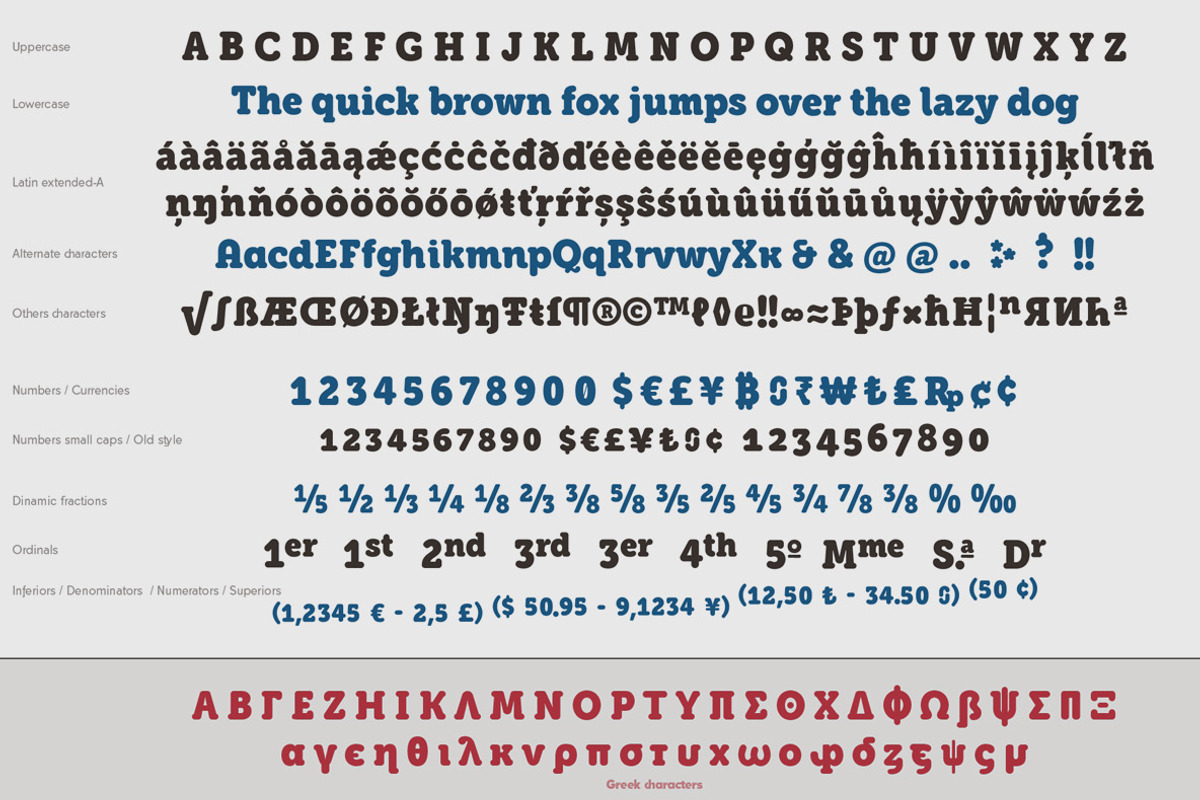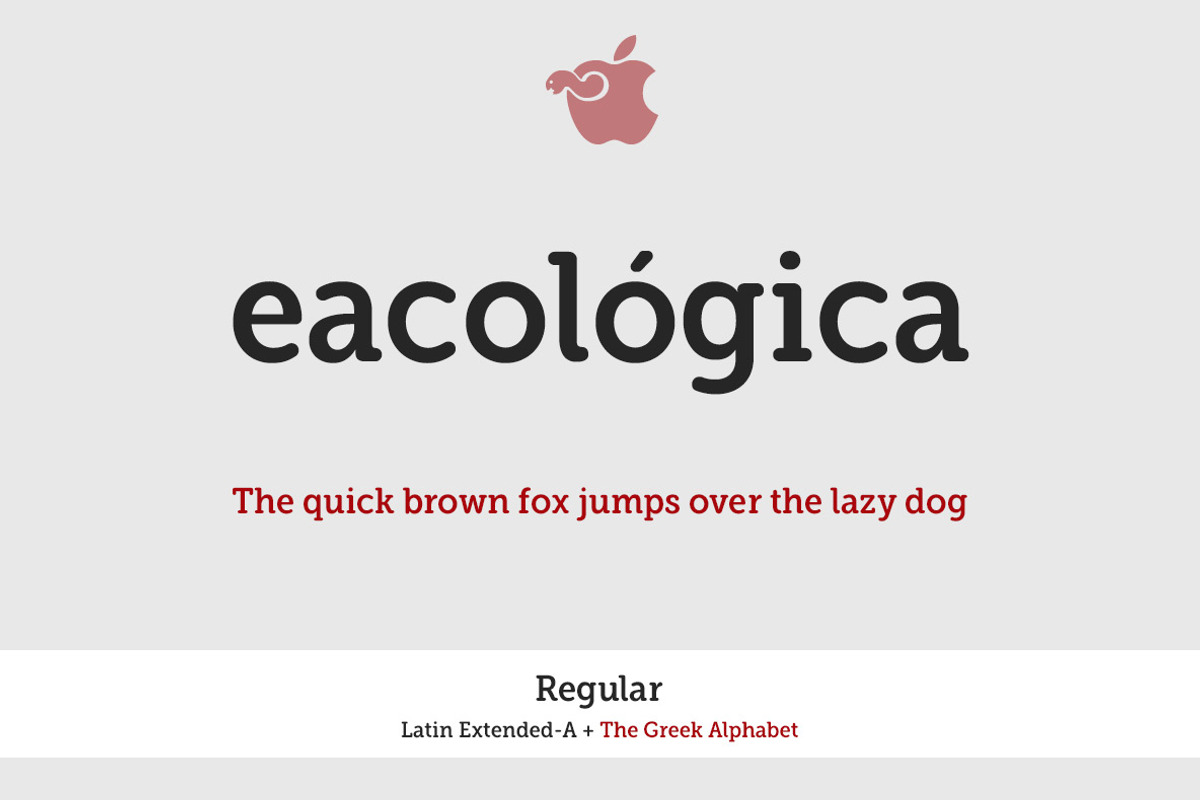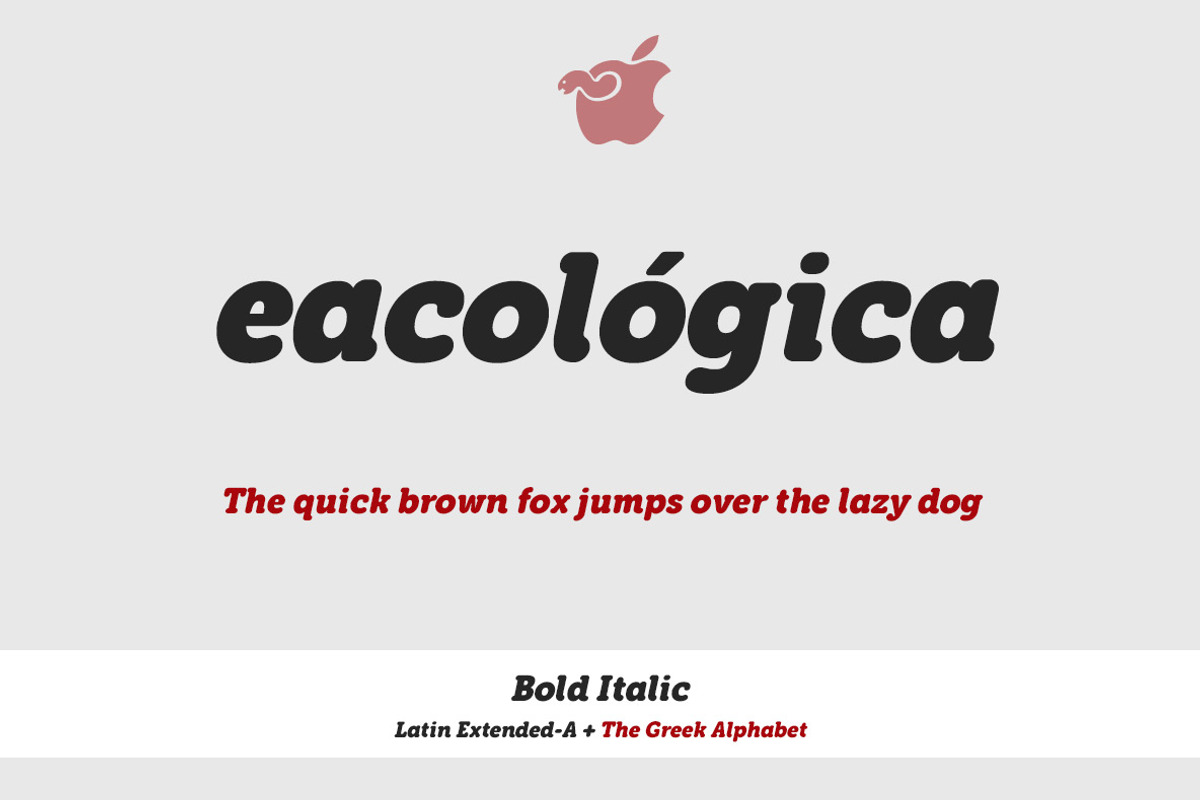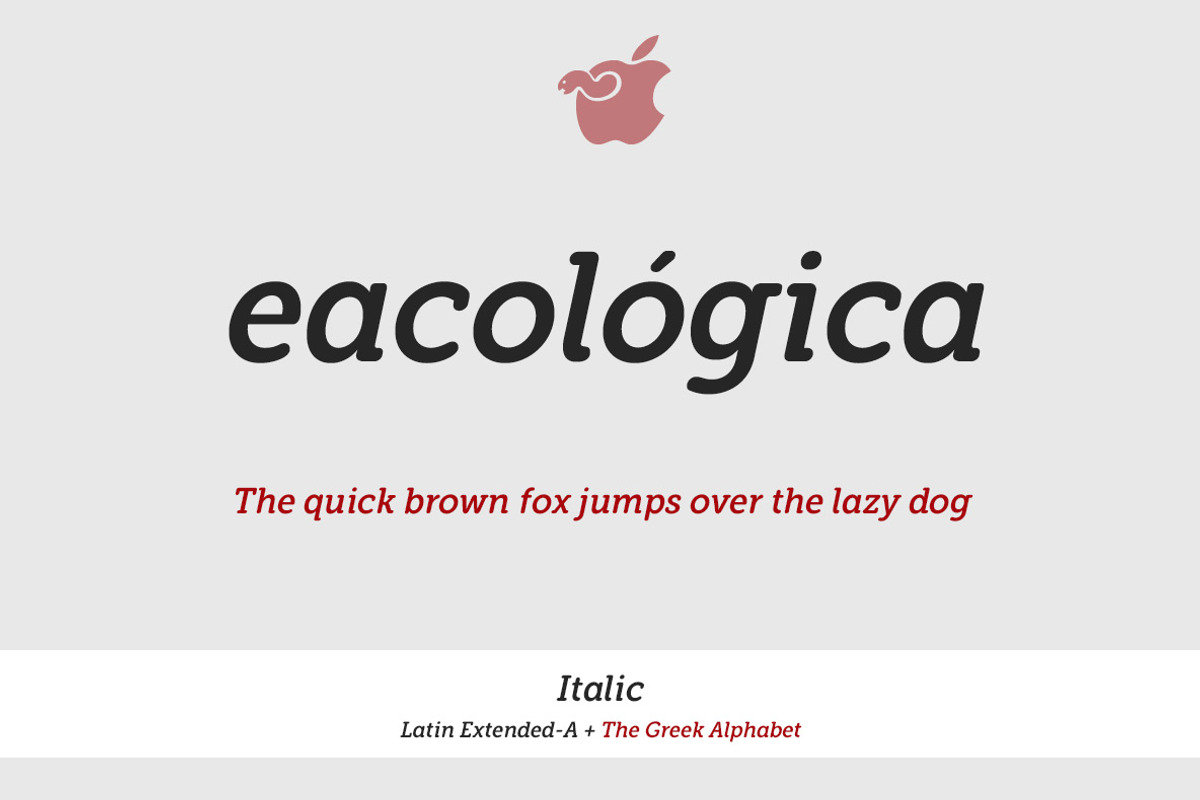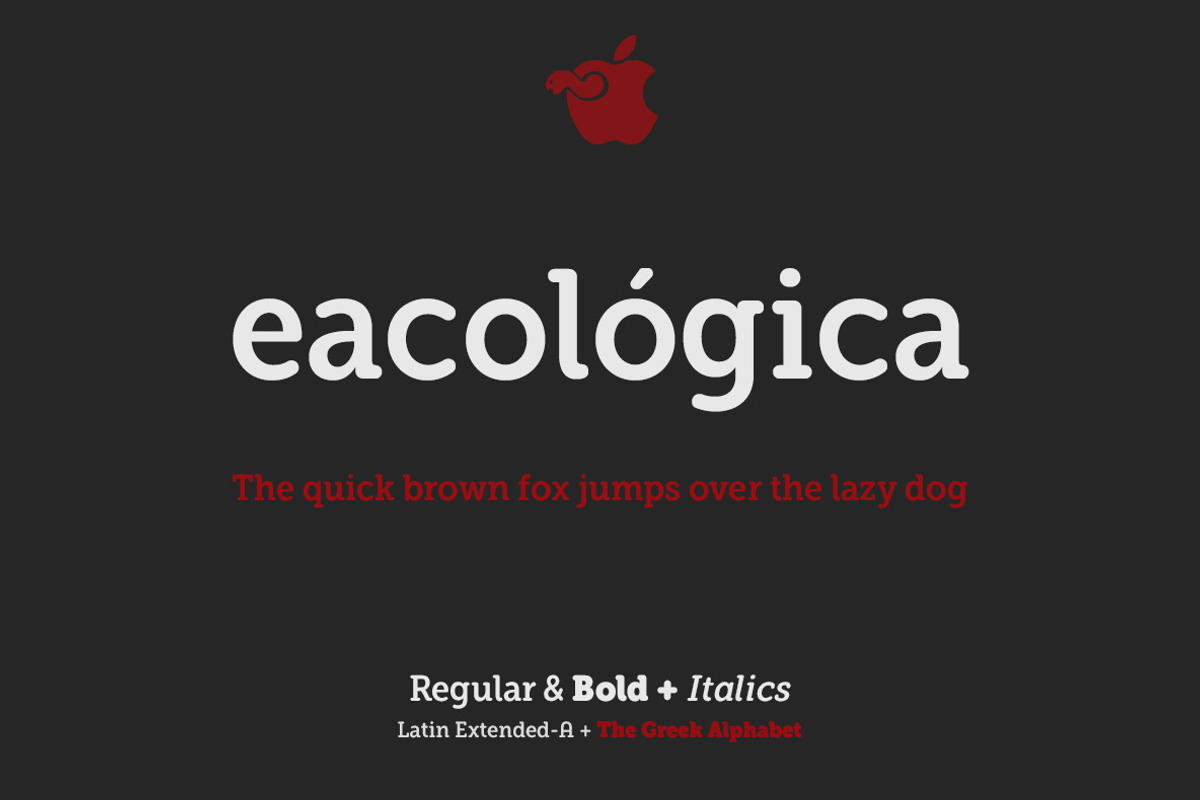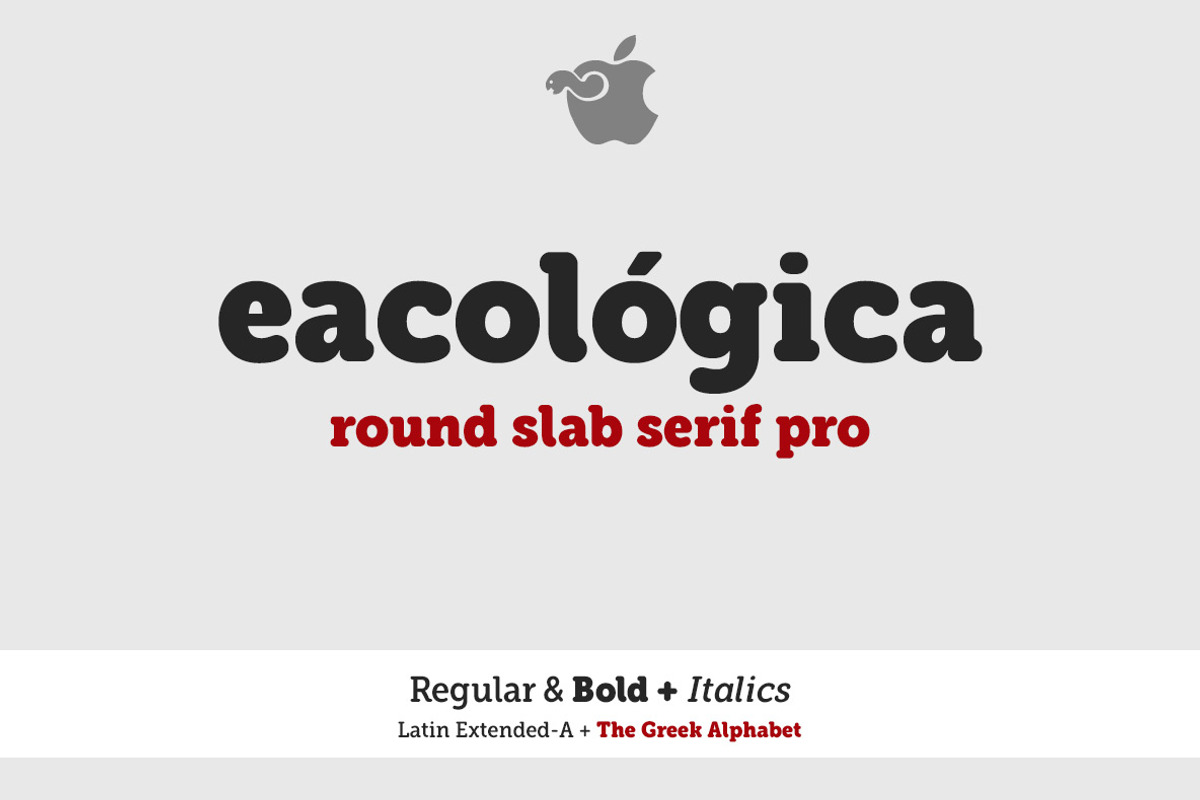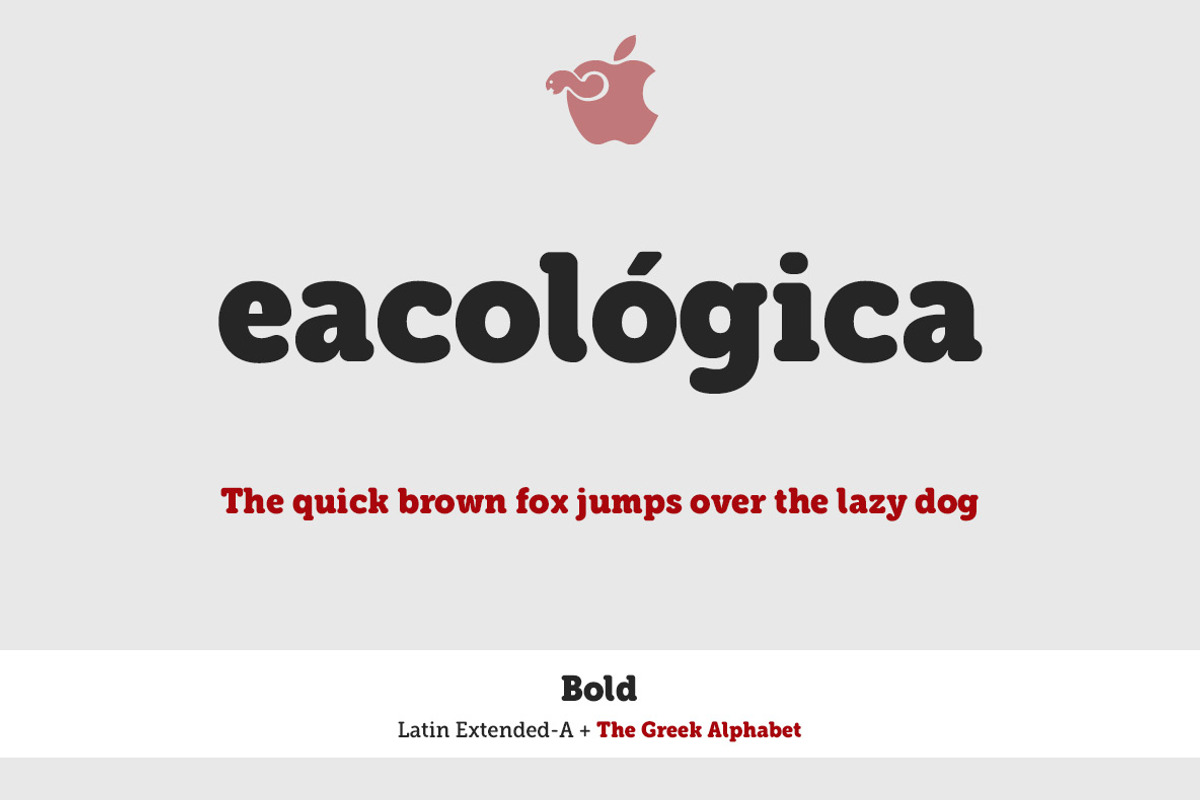
Eacológica round slab serif
Eacológica round slab is a chunky slab serif typeface with thick rounded, ideal for very readable sturdy-looking titles. You can use this font for headlines in editorial design, advertising and also for designing posters, signs or posters in all cases readability is guaranteed.
The round slab typography eacológica pro in its Regular, Bold and Italic versions include a set of 650 characters (Latin Extended) and the Greek alphabet, with support for any European language, or Central European.
- Versions Regular & Bold + Italics (4 fonts)
- Bitcoin Symbol keys: b# (lig)
Latin-Extended Character Set & Supported Languages: Albanian, Basque, Belarusian_lacinka, Bosnian, Breton, Catalan, Chamorro, Croatian, Czech, Danish, Dutch, English, Esperanto, Estonian, Faroese, Finnish, French, Frisian, Galician, German, Hungarian, Icelandic, Italian, Lithuanian, Malagasy, Maltese, Norwegian, Polish, Portuguese, Romanian, Serbian, Slovak, Slovenian, Spanish, Swedish, Turkish, Greek.